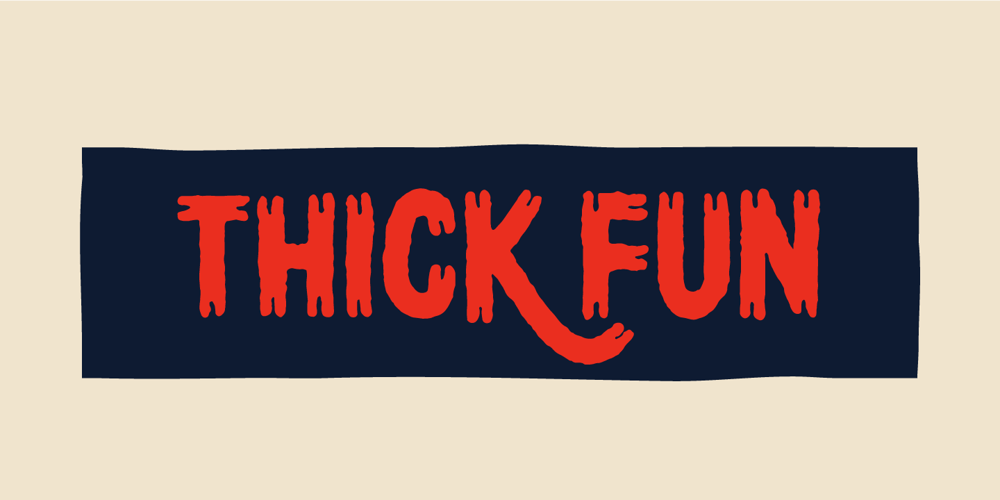
Thick Fun Font Family was designed by Jakob Fischer and published by PizzaDude.dk. Thick Fun contains 2 styles and family package options. This is not a brush font!This is an imitation of brushstrokes, done by pen. But I guess you’ve already noticed that – the brushstrokes are way too obvious, to have been made by brush. Although being a “fake”, the letters leaves you with quite a good impression. Letters were inspired by an old horror movie poster, but is very useful for something less terrifying!